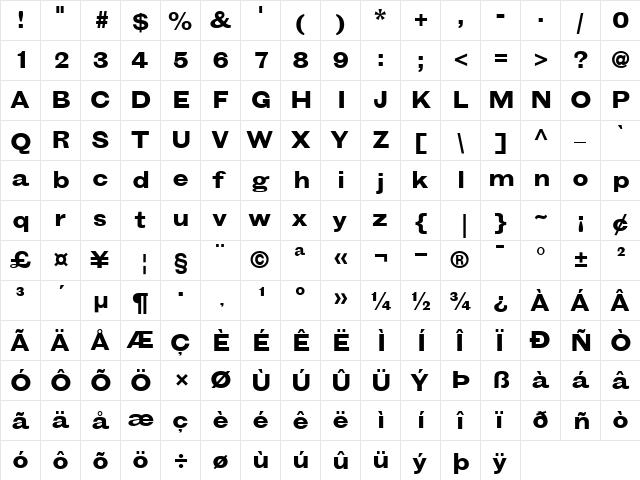
GrotesqueMT-Extended Bold
Design Context for GrotesqueMT-Extended Typeface
GrotesqueMT-Extended takes a measured approach to typography — its balanced proportions and neutral character make it a reliable workhorse for both digital and print work. The heavy weight commands attention and anchors typographic hierarchies.